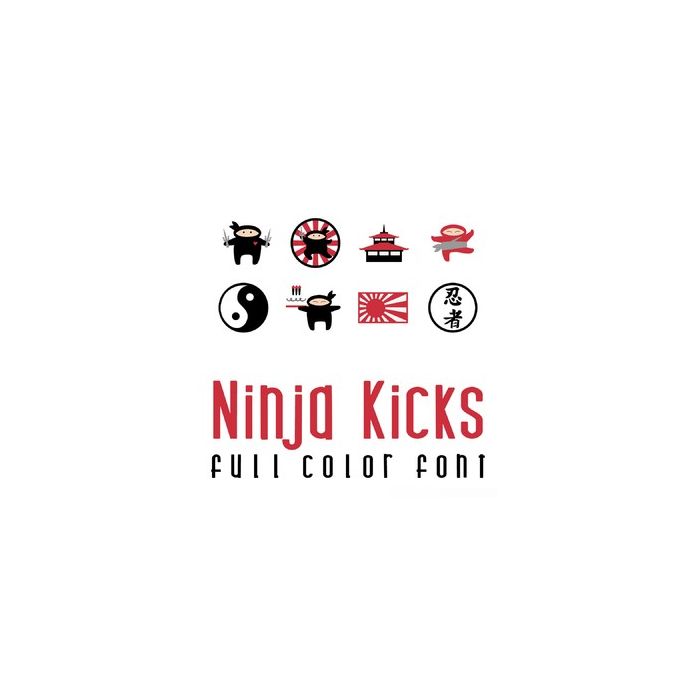
This adorable full color doodlebat font features adorable ninjas and oriental imagery. Perfect for cards, crafts, gifts, decor, scrap book pages, planner stickers and more!